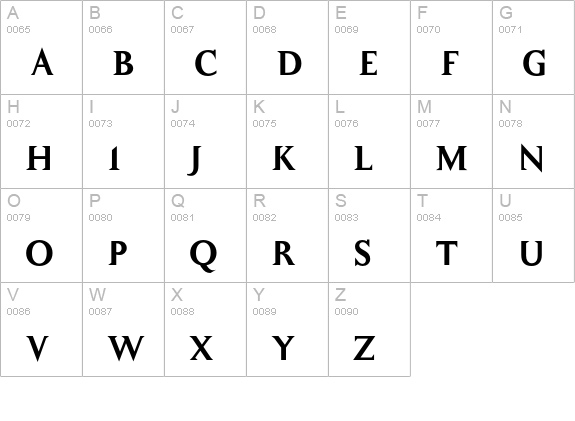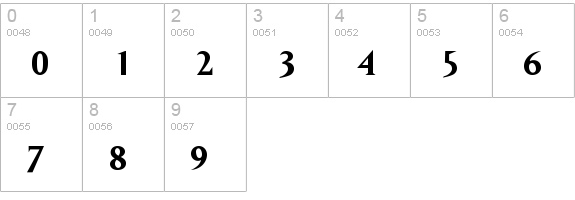
KopyKattKut-Bold Katt Kut-Bold Font Details
KopyKattKut-Bold Katt Kut-Bold is a strong, high-contrast variant in the KopyKattKut typeface family \xE2\x80\x94 well suited to headlines, attention-grabbing titles, and strong calls-to-action.
KopyKattKut-Bold Katt Kut-Bold font is a bold and eye-catching typeface that exudes a sense of modernity and style. With its sleek lines and strong presence, this font is perfect for making a statement in your design projects. Whether you're creating posters, logos, or social media graphics, KopyKattKut-Bold Katt Kut-Bold font is sure to stand out and grab attention. The best part? This striking font is available for free download at FontsMarket.com. Yes, you read that right - you can get your hands on this premium quality font without spending a dime. So go ahead, unleash your creativity and elevate your designs with KopyKattKut-Bold Katt Kut-Bold font today!